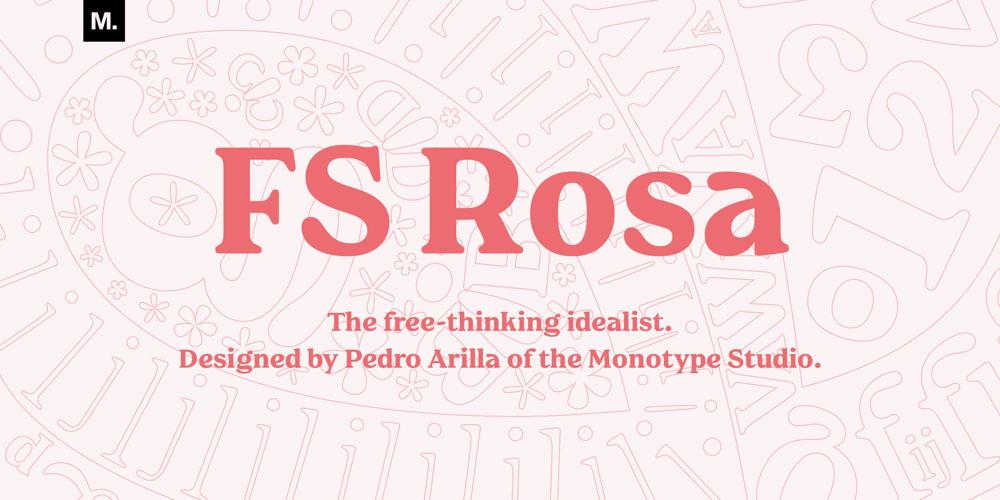
FS Rosa
FS Rosa font
FS Rosa Font Family was designed by Pedro Arilla and published by Monotype. FS Rosa contains 5 styles and family package options. FS Rosa is a free-spirited and optimistic serif typeface – reminiscent of those used on fanzines, film sequences and book covers of the 1970s, such as Cooper and Windsor, it has a laid-back nature with a touch of rebellion. It also reminds of type used in colourful protest graphics by nun-turned-designer Corita Kent, and its personality is akin with brands like Whole Foods – positive rather than preachy. While unconventional, it’s sensible enough to work perfectly for socially conscious brands, magazines, websites and campaigns that want a fairer and more responsible world. Hand-drawn digitally, FS Rosa is warm and open-minded – its irregular letterforms are rounded, with soft terminals, a large x-height and wide apertures. But it is also quirky and eclectic, with irregular shapes – its short ascenders and descenders have slanted serifs, its uppercase forms have unusually low crossbars and the letters are filled with oddities and surprises. The typeface looks to stand out against a sea of homogenous, geometric sans serifs, and celebrates beauty through imperfection. It comes in five weights of Thin, Light, Regular, Bold and Black. The heavier weights make an impact and are great for loud, headline statements. The Regular weight is functional, balanced and robust for text, and the lighter weights have an elegance and contemporary beauty. FS Rosa is eclectic yet with its soft roundness, also positive and progressive. Its name, inspired by the phrase “rose-tinted glasses”, reflects its optimism.